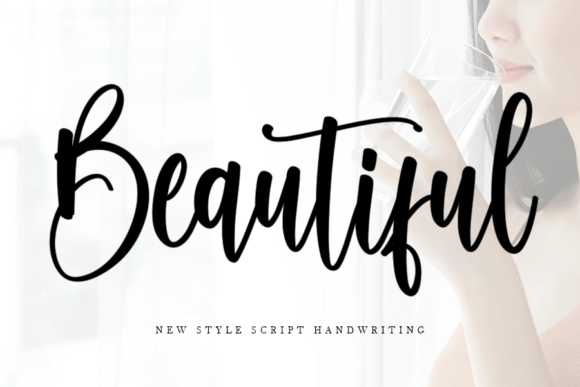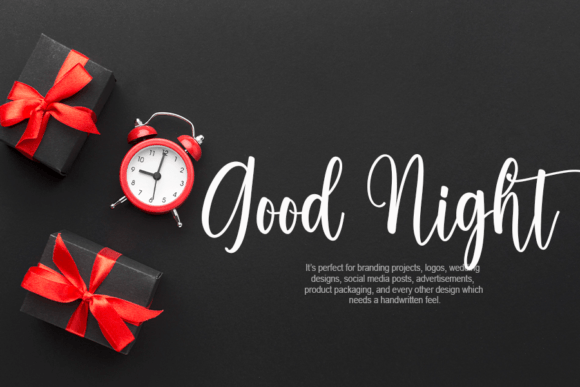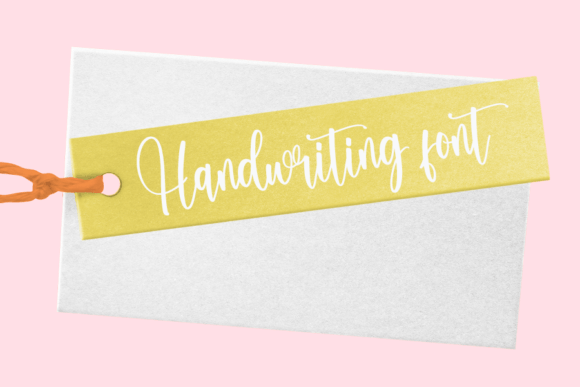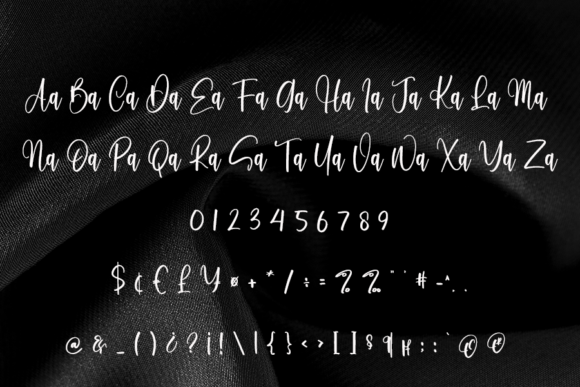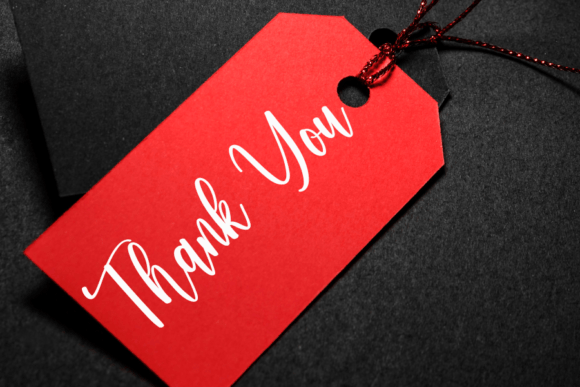
Beautiful Font
A Neat and Elegant Handwritten Typeface
Beautiful Font is a neat and elegant handwritten font that brings a refined touch to any design. With its distinctive and timeless style, this  adds a personalized, yet polished feel to your projects. Whether you’re designing wedding invitations, logos, greeting cards, or social media content, the Beautiful Font helps create memorable, charming designs that are both artistic and sophisticated.
Perfect for Wedding Invitations and Special Occasions
For wedding invitations and special occasion stationery, the Beautiful Font is an ideal choice. Whether you’re designing RSVP cards, save-the-dates, or thank-you notes, this font offers an elegant and romantic touch to your designs. Its handwritten appeal ensures that your invitations feel luxurious and timeless, creating a lasting impression for your special occasion.
Great for Logos and Branding Projects
For logos and branding, the Beautiful Font brings a unique and artistic touch to your business identity. Whether you’re designing a luxury brand logo, personal brand, or corporate materials, this font ensures your brand stands out with a refined, approachable style. The Beautiful is perfect for businesses in fashion, beauty, and lifestyle, giving your branding a personalized and premium feel that resonates with your audience.
Ideal for Greeting Cards and Invitations
For greeting cards and invitations, the Beautiful Font adds a romantic, charming touch. Whether you’re designing birthday cards, thank-you notes, or holiday greetings, this font ensures your designs feel luxurious and sophisticated. Its elegant handwritten design enhances the visual appeal, making it perfect for both formal and casual occasions. The Beautiful Font guarantees your greeting cards and invitations stand out with a timeless charm.
Perfect for Product Packaging and Labels
For product packaging and labels, the Beautiful Font provides a premium, refined touch to your branding materials. Whether you’re designing product labels, gift packaging, or seasonal items, this  ensures your products have a personalized and luxurious feel. Ideal for artisan products, custom gifts, and high-end goods, the Beautiful Font makes your packaging look elegant and exclusive.
Versatile, Legible, and Elegant
Despite its delicate handwritten design, the Beautiful  remains legible and easy to use. Its well-spaced characters and consistent strokes ensure that your text is clear and readable, even for longer passages or smaller sizes. Whether you’re using it for headlines, captions, or body text, this  strikes the perfect balance between creativity and readability, making it suitable for a wide range of design applications, from print to digital media.
Add Elegance and Timeless Beauty to Your Designs with Beautiful Font
If you’re looking for a delicate, elegant handwritten font that adds a timeless, personalized touch to your designs, the Beautiful  is the perfect choice. Whether you’re designing wedding invitations, logos, greeting cards, or social media posts, this  will help you create memorable, refined designs that stand out. Let the Beautiful  bring a graceful, artistic touch to your projects and leave a lasting impression with its elegance and sophistication.